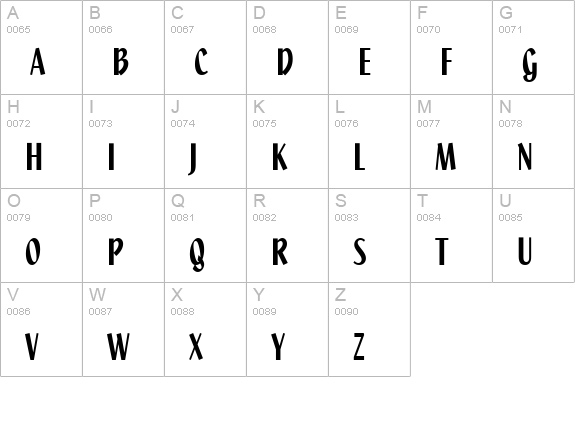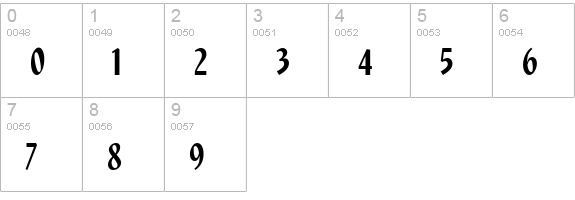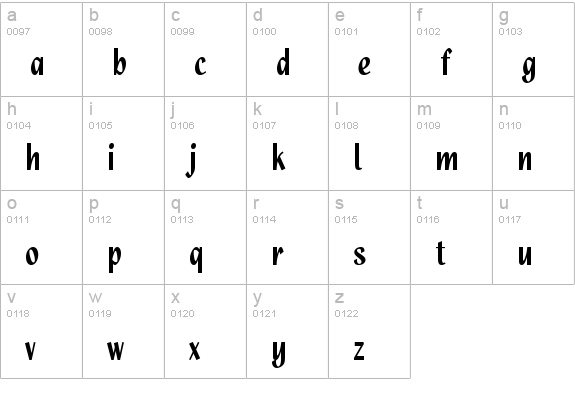
Quixley Plain Font Details
Introducing Quixley Plain font, a stunning typeface that effortlessly combines timeless elegance with modern simplicity. Designed to captivate, this font exudes a sense of sophistication and clarity, making it the perfect choice for a wide range of design projects. The Quixley Plain font is characterized by its clean lines, balanced proportions, and refined letterforms. Its classic yet contemporary aesthetic lends itself beautifully to both print and digital applications, whether it be for branding, editorial design, packaging, or web design. One of the standout features of Quixley Plain font is its versatility. It effortlessly adapts to various styles and moods, effortlessly conveying messages of professionalism, creativity, and reliability. Its versatility is further enhanced by its extensive character set, including uppercase and lowercase letters, numerals, punctuation marks, and special characters. But what truly sets Quixley Plain font apart is its accessibility. It is freely available to download at FontsMarket.com, allowing designers and creatives from all walks of life to enjoy its beauty and unleash their creativity without any financial constraints. This font's availability for free ensures that it can be utilized by both professionals and enthusiasts alike, fostering a sense of inclusivity within the design community. The Quixley Plain font is meticulously crafted to ensure legibility and readability across various mediums and sizes. Its refined details and balanced spacing guarantee optimal visual impact, making it a reliable choice for projects that require clear and concise communication. Whether you're designing a logo, creating a brand identity, or simply adding a touch of elegance to your next project, Quixley Plain font is an exceptional choice. With its timeless appeal, versatile nature, and the fact that it is freely available to download at FontsMarket.com, this font is a valuable asset for any designer looking to make a lasting impression.